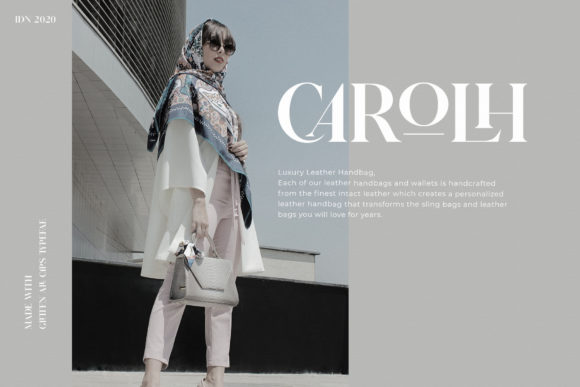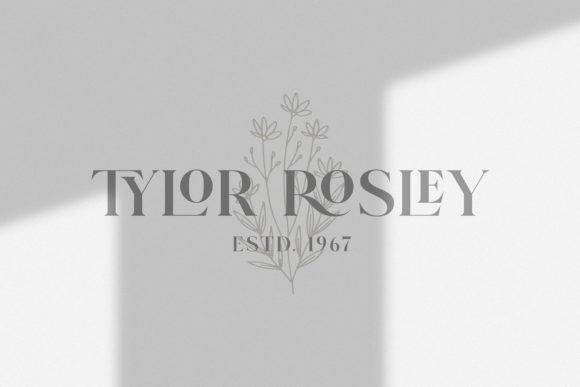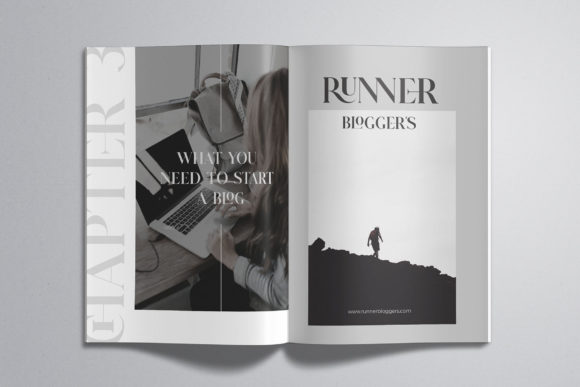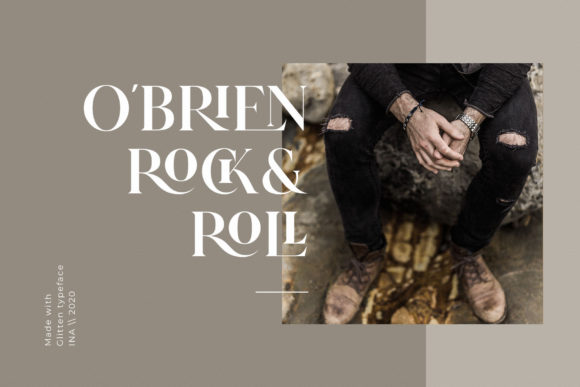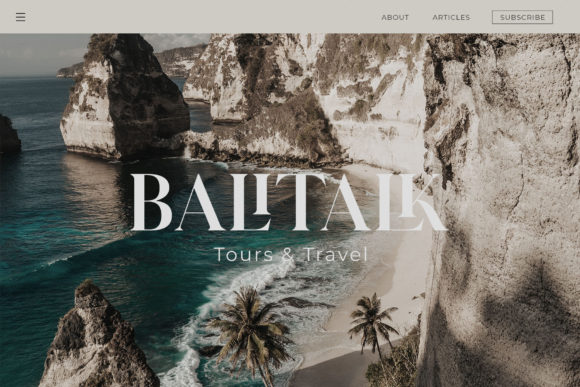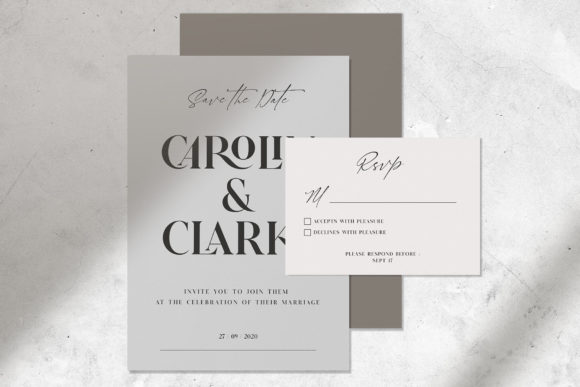
Introducing Glitten Font: Elevate Your Designs with Elegance and Boldness
Are you tired of using the same old fonts in your designs? Look no further! Glitten Font is here to revolutionize the way you approach typography. This bold and elegant serif font is designed to make your creative projects stand out from the crowd. With its versatility and timeless charm, Glitten Font is the perfect addition to your font library.
The Characteristics of Glitten Font
Glitten Font boasts a unique blend of boldness and elegance, making it an excellent choice for a wide range of projects. Its serif design adds a touch of sophistication, while its bold weight ensures that your text grabs attention. The font’s classic look and feel make it suitable for both digital and print applications.
Why Choose Glitten Font?
So, what sets Glitten Font apart from other fonts? Here are just a few reasons why designers and crafters love working with this font:
- Versatility: Glitten Font can be used in an incredibly large set of projects, from luxury branding and advertising to packaging and editorial design.
- Elegance: The font’s serif design and bold weight give it an air of sophistication, perfect for high-end designs.
- Readability: Glitten Font is designed to be easy to read, making it suitable for body text and headlines.
How to Use Glitten Font in Your Designs
Ready to add Glitten Font to your design arsenal? Here are some ideas to get you started:
- Luxury Branding: Use Glitten Font to create bold and elegant logos, business cards, and letterheads.
- Advertising: Make your ads stand out with Glitten Font’s attention-grabbing design.
- Packaging: Add a touch of sophistication to your product packaging with Glitten Font.
- Editorial Design: Use Glitten Font to create stunning headlines and titles for magazines, newspapers, and books.
Tips and Tricks for Working with Glitten Font
To get the most out of Glitten Font, here are some expert tips and tricks:
- Experiment with Font Sizes: Glitten Font looks great in a variety of font sizes, from large headlines to smaller body text.
- Play with Color: Try pairing Glitten Font with different colors to create unique and eye-catching designs.
- Mix and Match: Combine Glitten Font with other fonts to create interesting and dynamic typography.
In conclusion, Glitten Font is a bold and elegant serif font that can elevate your designs to new heights. Its versatility, elegance, and readability make it a valuable addition to any designer’s font library. Whether you’re working on a luxury branding project, advertising campaign, or editorial design, Glitten Font is sure to make your creative ideas stand out. So why wait? Add Glitten Font to your design arsenal today and discover a world of limitless creative possibilities!